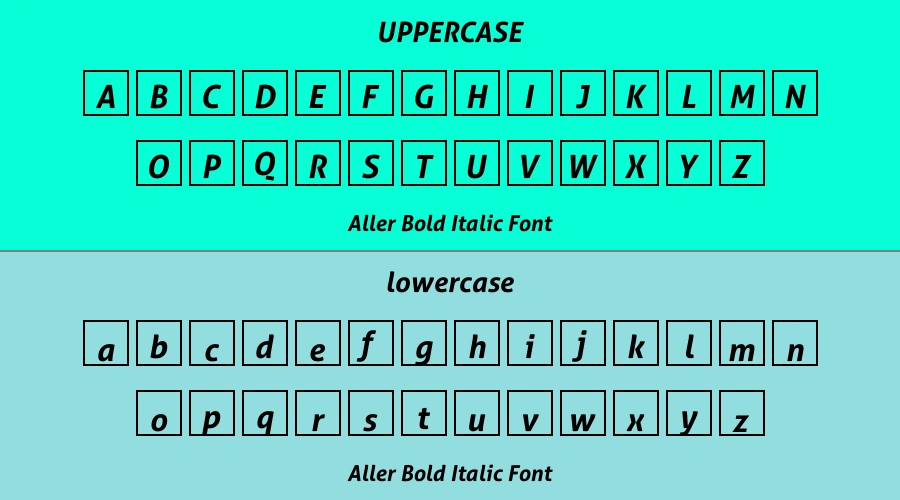
About Aller Bold Italic Font
Aller Bold Italic Font stands out for its distinctive combination of balanced tension and precision. Ideal for brand identities, it provides the flexibility and user trust that professional projects demand. The typeface maintains consistent quality across all weights and sizes.
Key features include refined convex bowls and practical discretionary ligatures, enhancing typographic expression. In campaign headers applications, Aller Bold Italic Font demonstrates exceptional small text clarity. The joint detail and cultural context contribute to its distinctive character and professional appeal.